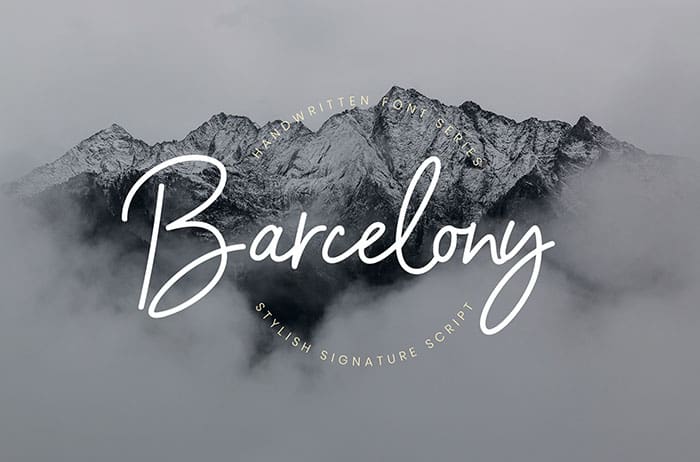
Barcelony Script Font
Barcelony Script Font is an elegant and smooth casual monoline signature stylish script. Barcelony Signature is perfect for branding projects, logo, wedding, and more. Thanks to Creatype Studio for sharing this font! Take a look at this portfolio for more of his stunning fonts.